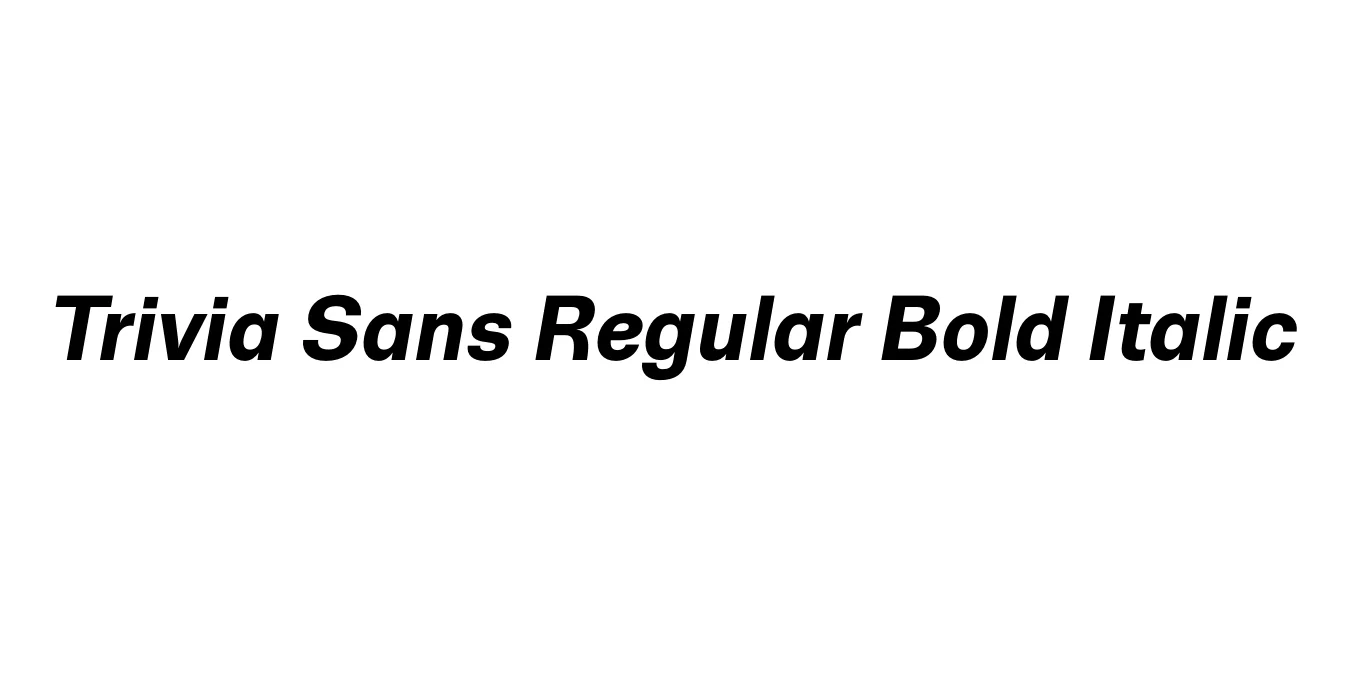
Trivia Sans Regular Bold Italic
Designed by František Štorm
Trivia Sans Regular Bold Italic is a distinguished member of the Trivia superfamily, meticulously crafted by František Štorm. This font family was developed with a focus on structural clarity and editorial versatility, bridging the gap between classical proportions and modern sans-serif functionality. The Bold Italic variant specifically provides a vigorous, slanted stance that commands attention without sacrificing the refined elegance characteristic of the entire series.
As part of a comprehensive typographic system, this font is highly adaptable for diverse environments, ranging from high-end print publications to responsive digital interfaces. The humanist undertones in its design prevent it from appearing too rigid, allowing for a pleasant reading experience in both short-form copy and prominent display settings. It stands as a testament to the Storm Type Foundry commitment to high-quality, professional-grade typography.
Trivia Sans Regular Bold Italic Best Uses
Perfect for magazines, newspaper headlines, and pull quotes.
Strong and reliable for corporate logos and stationary.
Highly legible for call-to-action buttons and emphasis in digital UI.